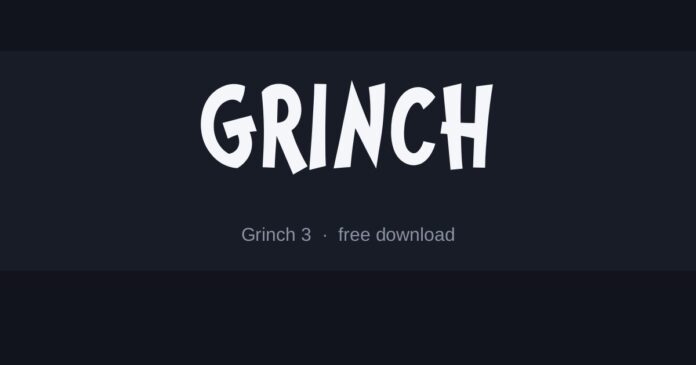
What font is the The Grinch logo?
The books use Dr. Seuss’s own hand-lettering — bouncy capitals that swell in the middle and taper at the ends, with no two quite alike.
The films have each relettered it, but all of them keep the same bounce and the same slightly rubbery weight.
- Grinch 3 is the closest to the bouncing, uneven capitals of the book titles.
- Grinch Plus is a heavier cut of the same idea, better at poster size.
- Icicle Country 2 adds the snow-capped treatment for a more Christmas-card feel.
Seuss drew his lettering with a brush, which is why the strokes swell and thin rather than holding an even width, and why the baseline wanders instead of sitting flat.
Any font imitating it has to fake that variation with a single set of shapes, so the result reads best in short words where the repetition is not obvious.
- Keep it to one or two words — repeated letters expose the trick quickly
- Let the baseline rise and fall rather than sitting flat
- Red and green is obvious; the films lean on acid green against warm cream, which looks less like clip art